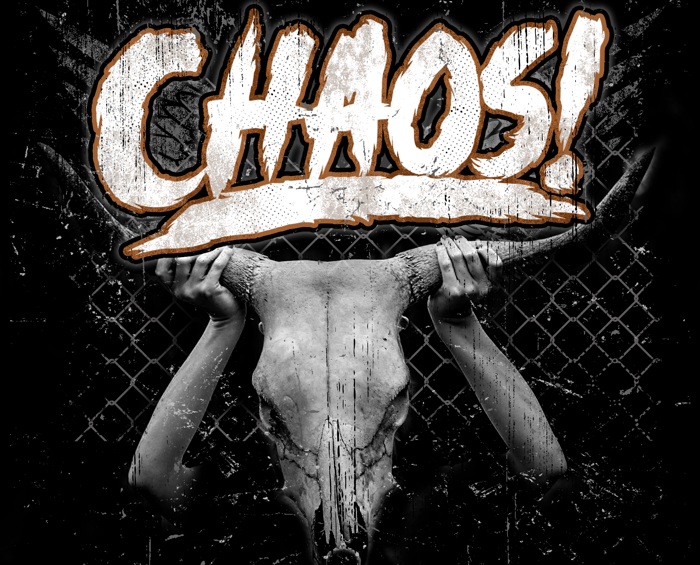
Chaos! Font
CHAOS
- Dark bold brush inspired font perfect on your school projects, covers, etc.
- Lifestyle street theme font for branding, website, mobile app etc.